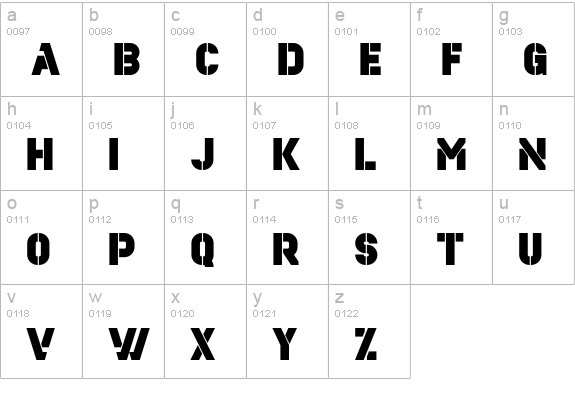
Estenceler SemiBold Font Details
Estenceler SemiBold is a sub-bold, structured variant in the Estenceler typeface family \xE2\x80\x94 well suited to sub-headlines and emphasised passages.
Introducing Estenceler SemiBold font, a sleek and modern typeface designed to make a statement in your design projects. With its strong and confident appearance, Estenceler SemiBold is perfect for headlines, titles, and branding materials that require a bold touch. The clean lines and sharp edges of this font exude a sense of professionalism and sophistication, making it a versatile choice for a wide range of design applications. What sets Estenceler SemiBold apart is not only its striking aesthetic appeal but also its accessibility. This font is available for free download at FontsMarket.com, allowing you to enhance your creative projects without breaking the bank. Whether you're working on a logo, poster, website, or any other design project, Estenceler SemiBold is sure to elevate your work and leave a lasting impression on your audience. Don't miss out on the opportunity to add Estenceler SemiBold to your font collection today. Download it for free at FontsMarket.com and take your designs to the next level with this bold and stylish typeface.